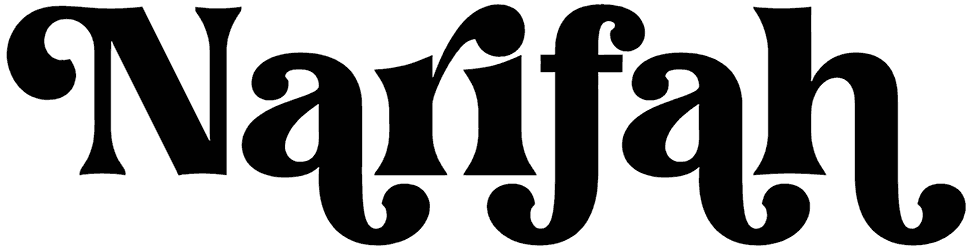
Narifah is a perfect blend of elegance and formality that its unique style evokes a feeling of professionalism, dynamic, formality, or confidence in the audience’s minds and grabs their attention.
The prominent benefit of this artwork is that it comes in four different styles and unbelievably widens your selection range. Aside from its numerous advantages, this serif can be utilized in logos, book covers, brochures, e-books, and magazines.